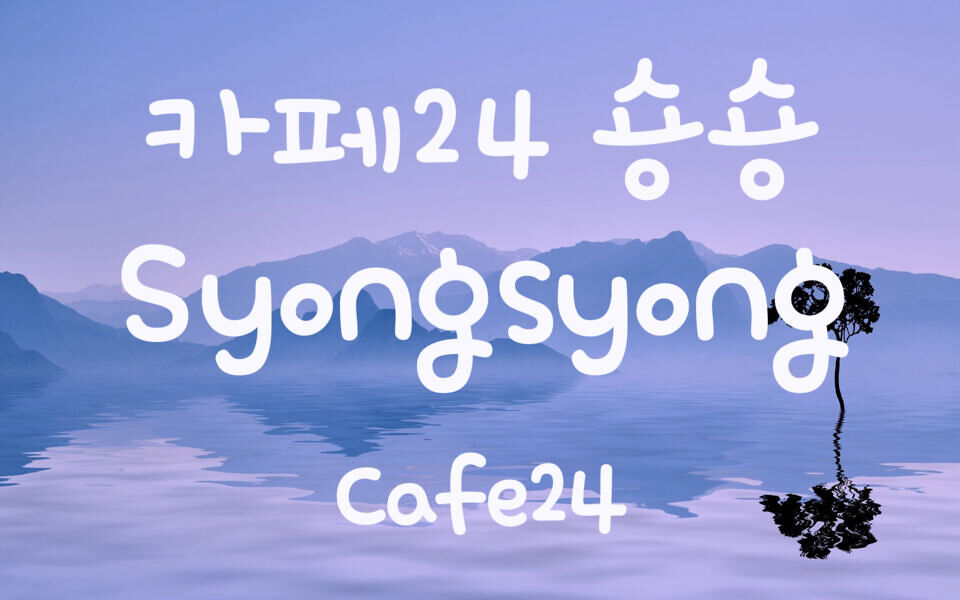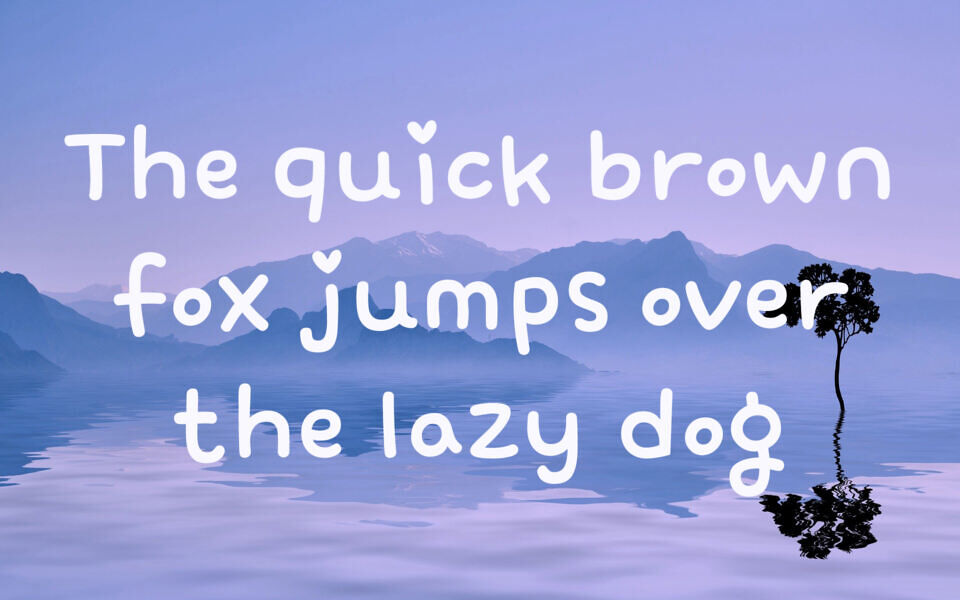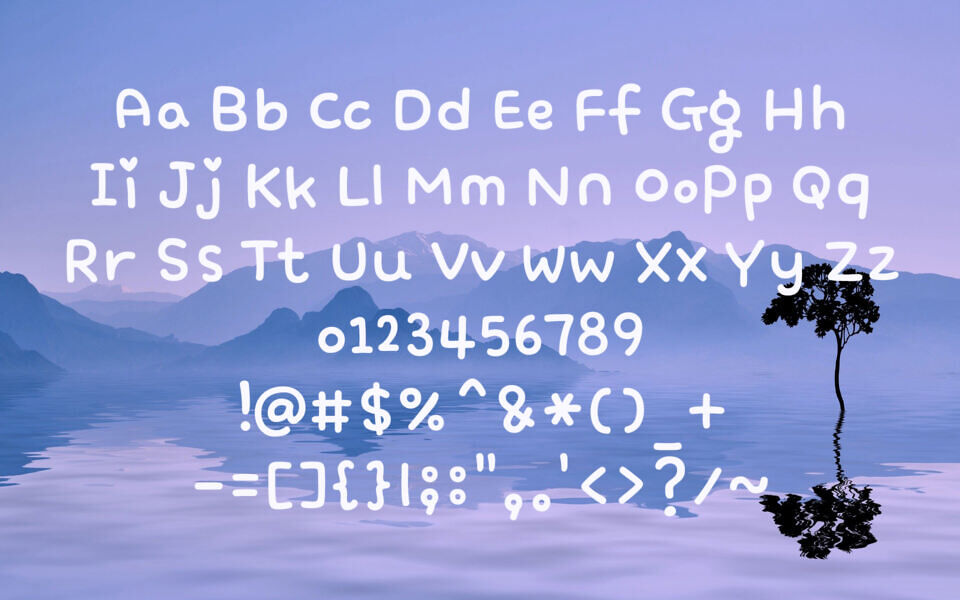
Syongsyong Font by Cafe24 is a charming and playful typeface that radiates cuteness and warmth. With soft, rounded strokes and whimsical accents like heart-shaped dots, this font is perfect for projects aimed at children, casual branding, or cheerful content.
Its handwritten feel brings a sense of friendliness and creativity, while maintaining readability. The overall tone is lighthearted and fun—ideal for conveying joy and positivity in visual storytelling.